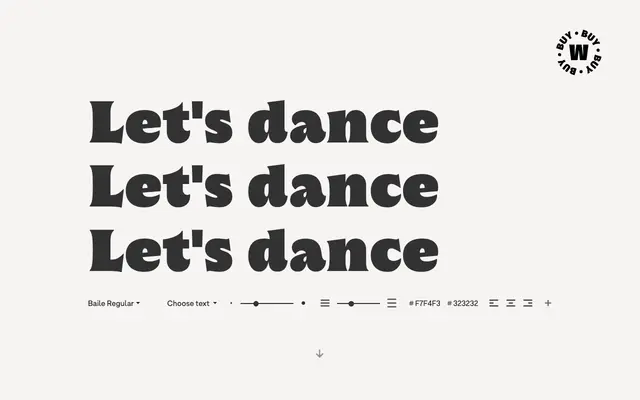
Baile
A decorative display serif by Gaspar Muñoz, drawing on ITC Benguiat with reworked proportions and distinctive terminals for headline and poster use.
Designed by Gaspar Muñoz, Baile takes ITC Benguiat as its starting point and reworks it with adjusted proportions, revised terminals and an extrabold weight for added visual punch. Available in Regular and Italic, the two-style family suits impactful headlines, book covers, posters and editorial layouts where a decorative serif personality is needed. Its ornamental character keeps it firmly in display territory rather than running text.
Described as a serif display typeface inspired by ITC Benguiat, with decorative terminals and adjusted proportions suited to headline and poster use rather than text setting.